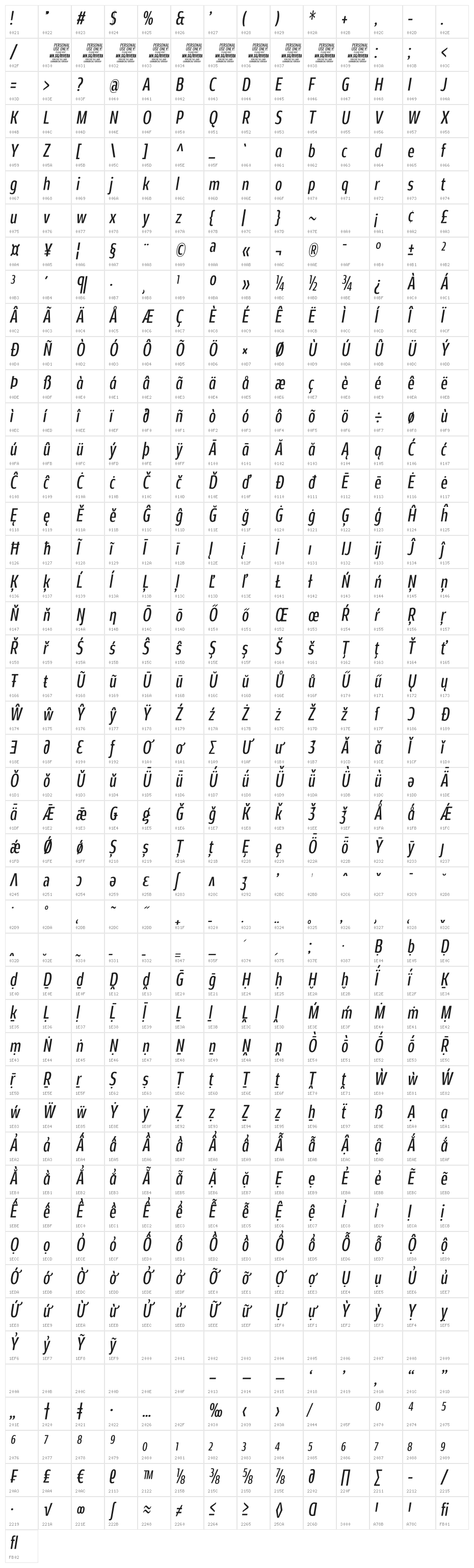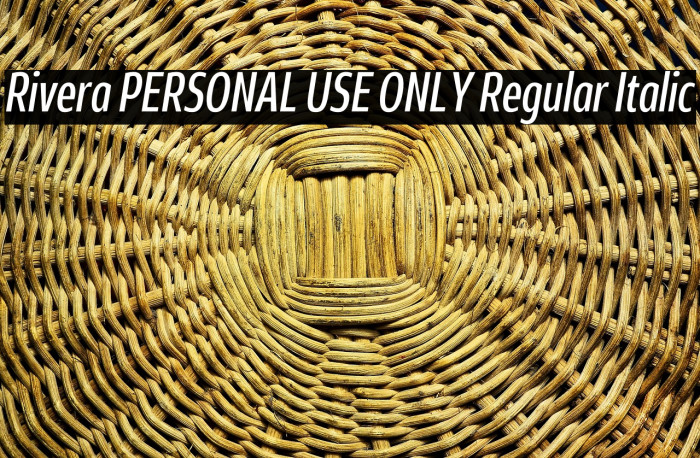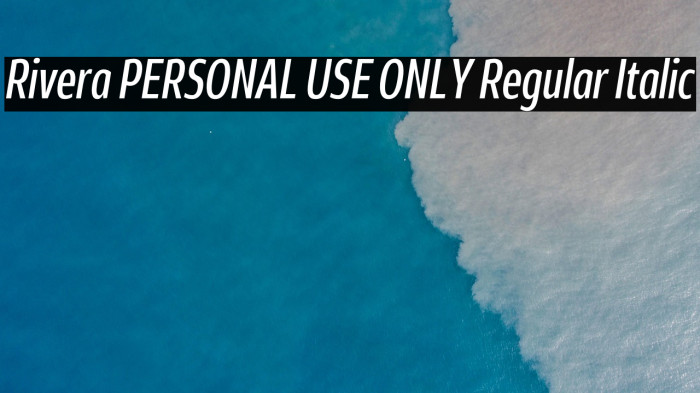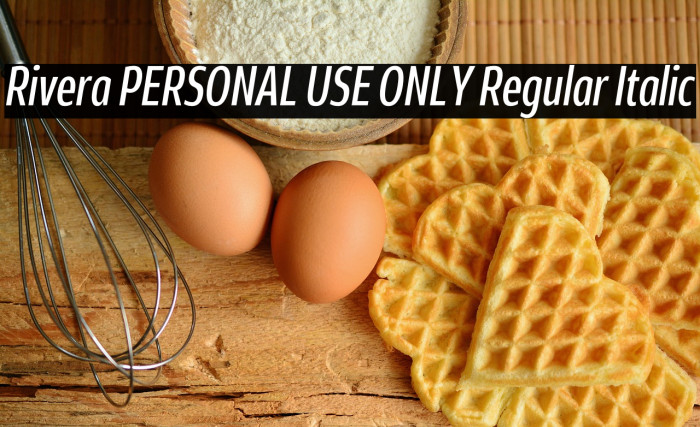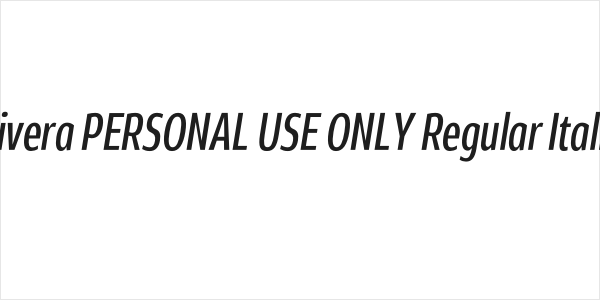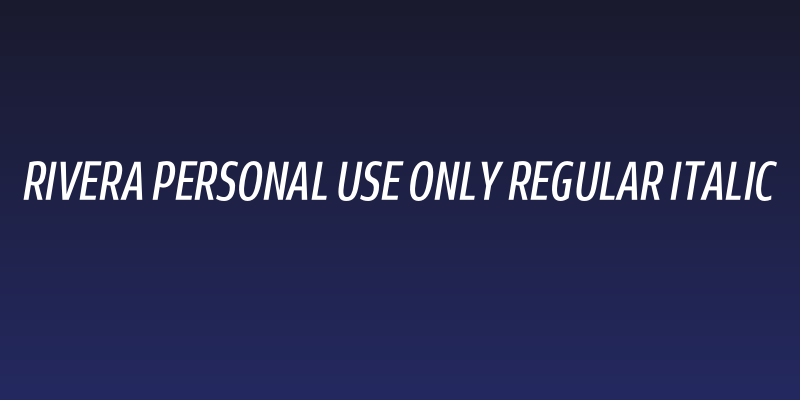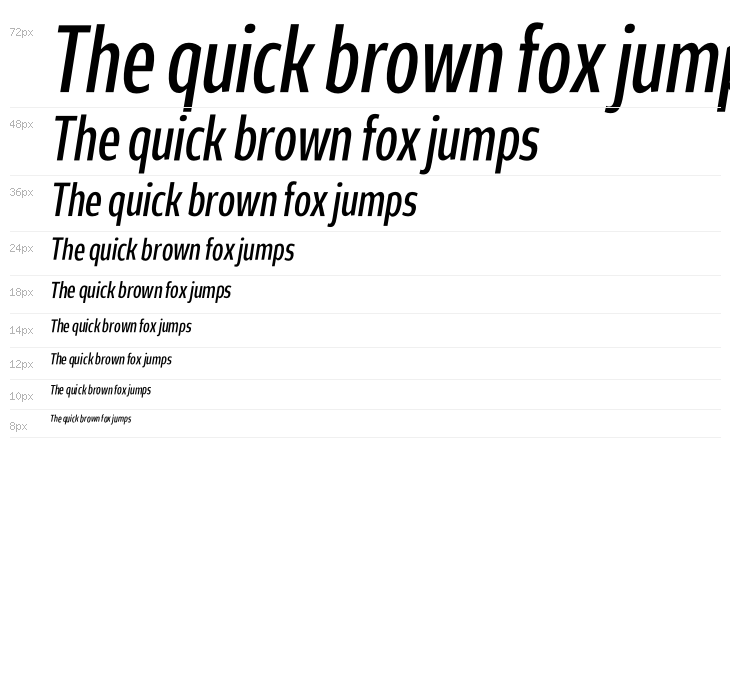
Rivera PERSONAL USE ONLY Regular Italic Font
Rivera PERSONAL USE ONLY Regular Italic Description
This font features a sleek and modern design with an italicized style, giving it a dynamic and forward-leaning appearance. The characters are slightly condensed, enhancing its contemporary look. The strokes are consistent, with medium contrast that balances readability and style. The uppercase letters are tall and commanding, while the lowercase letters maintain a smooth flow, making it versatile for various applications. The numerals and special characters are crafted to match the overall aesthetic, ensuring uniformity across all text elements.
| Use Case | Headlines, Logos, Editorial Design |
| Proposed Projects | Ideal for branding projects, modern advertising, digital media, and editorial design where a contemporary and stylish look is desired. |